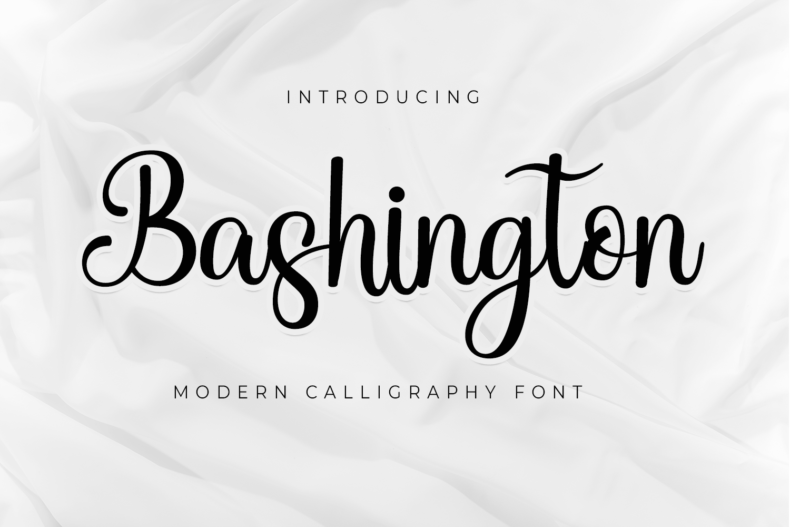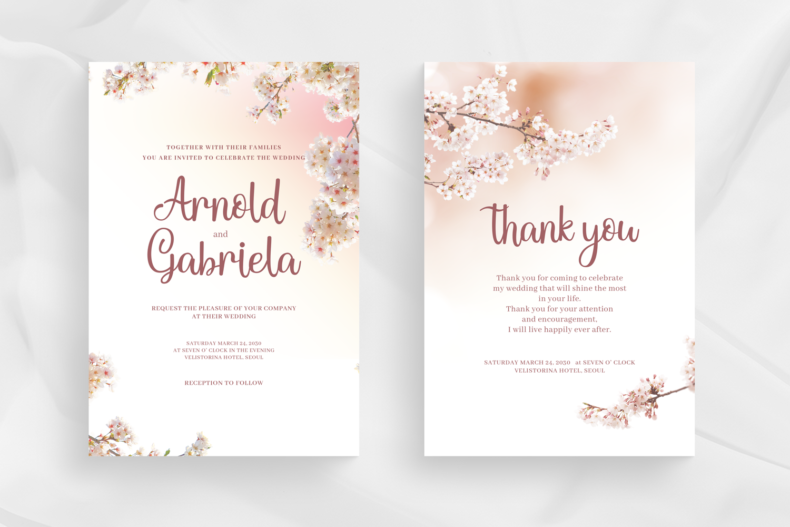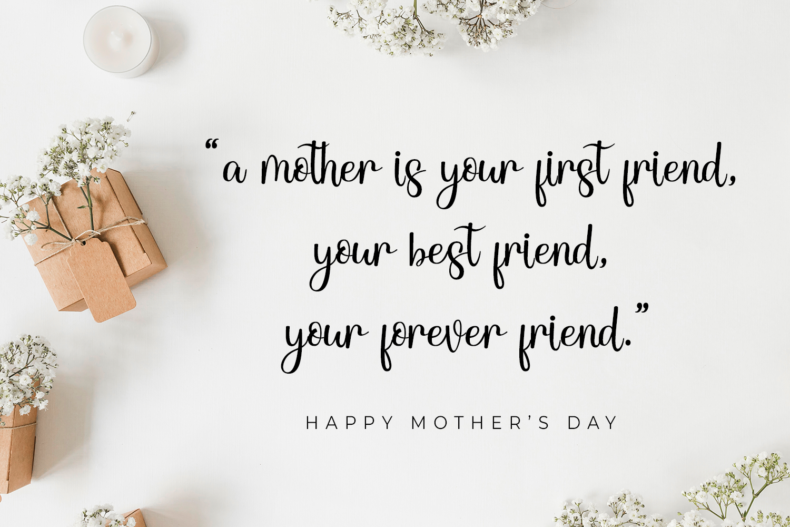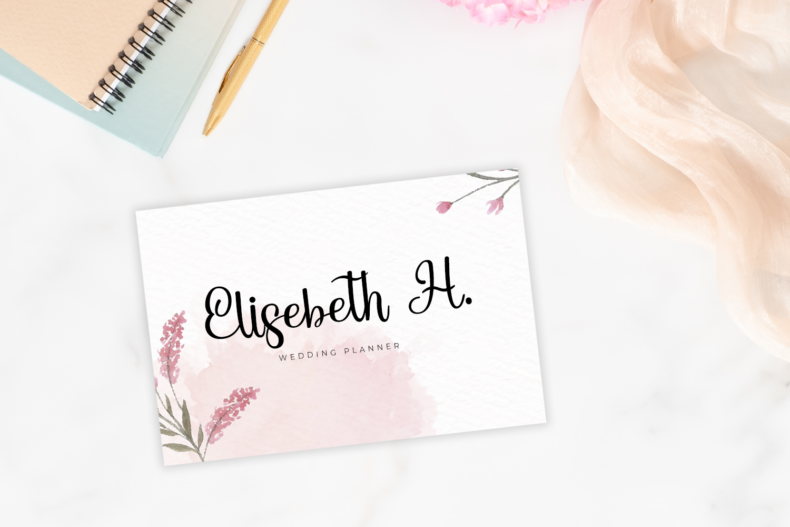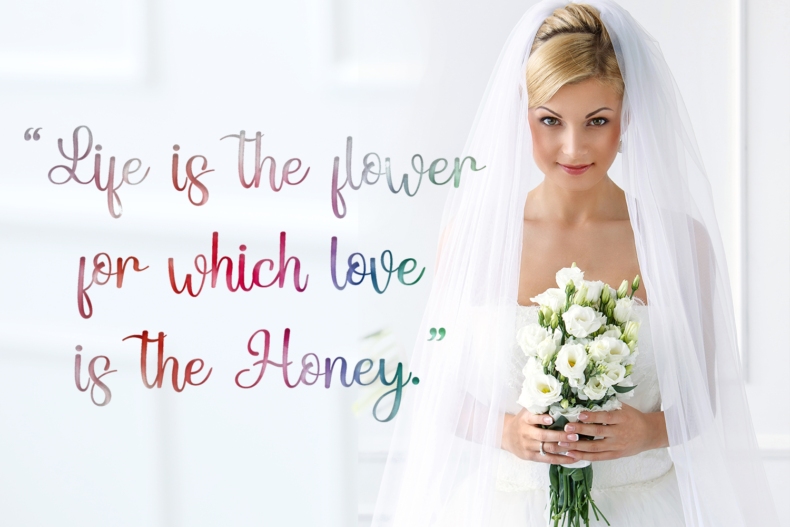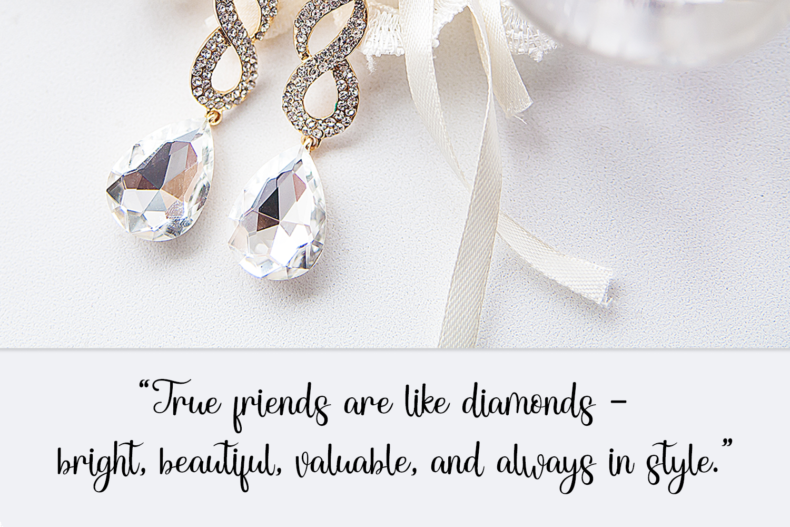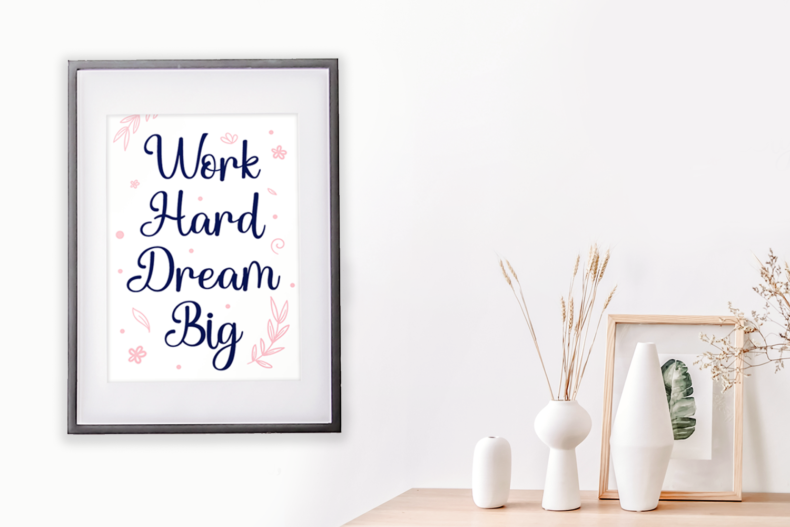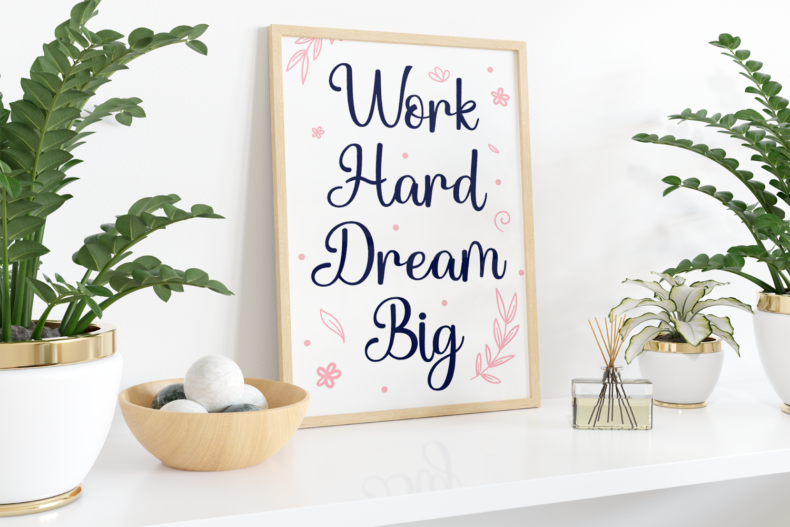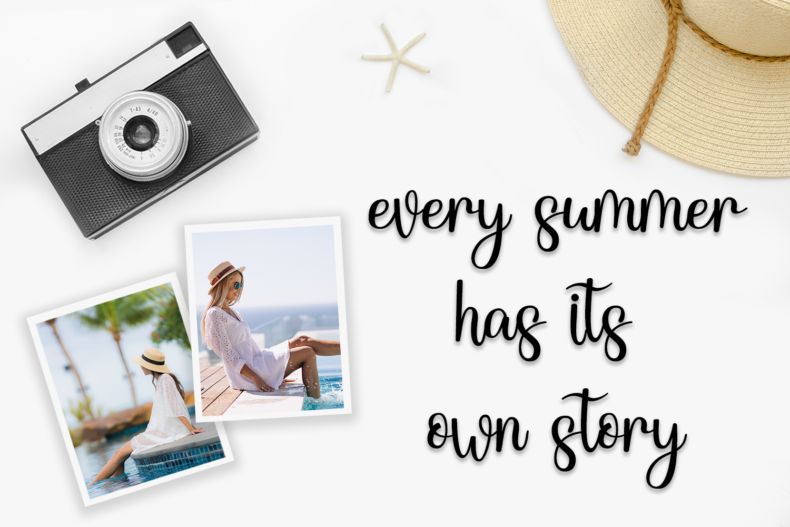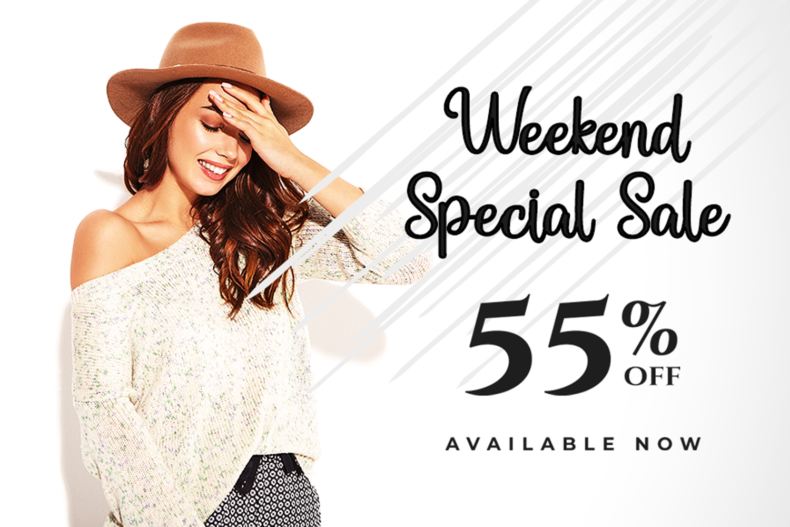
Bashington, Sweet Calligraphy Font
The expression of a sweet personality delightfully presented by Bashington, lets you transform type into an exciting and beautiful piece of work. This will work perfectly for wedding, food, e-commerce brands, trend blogs, boutiques or any business that wants to appear upscale and sweet.